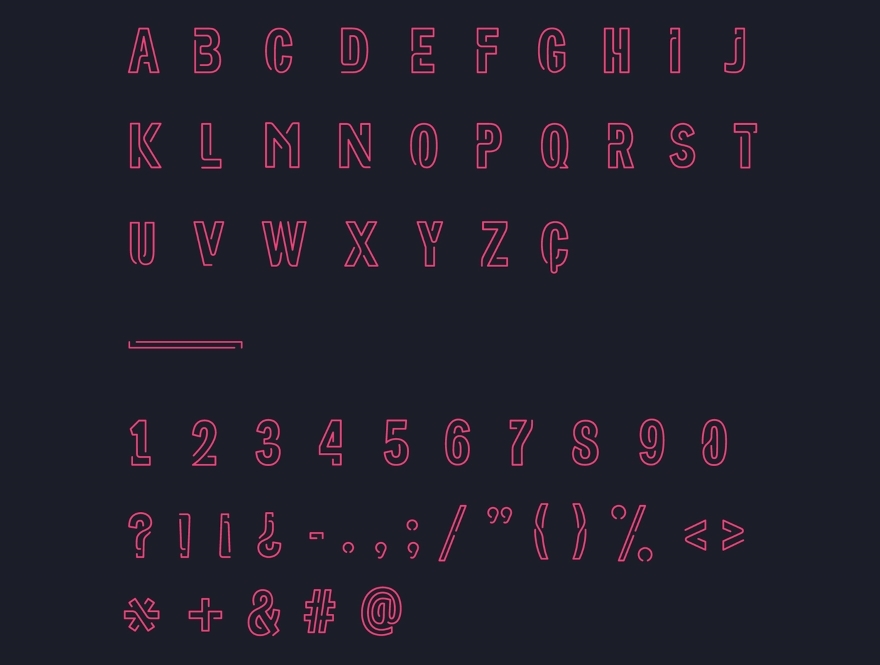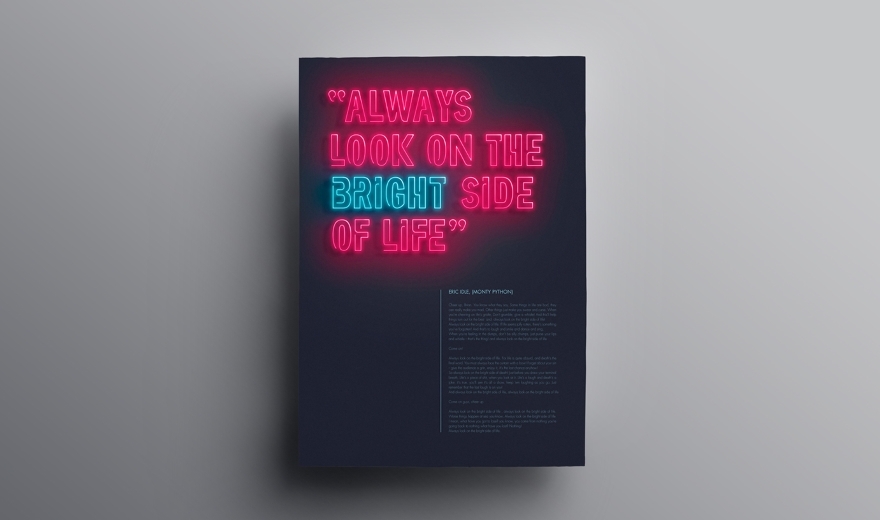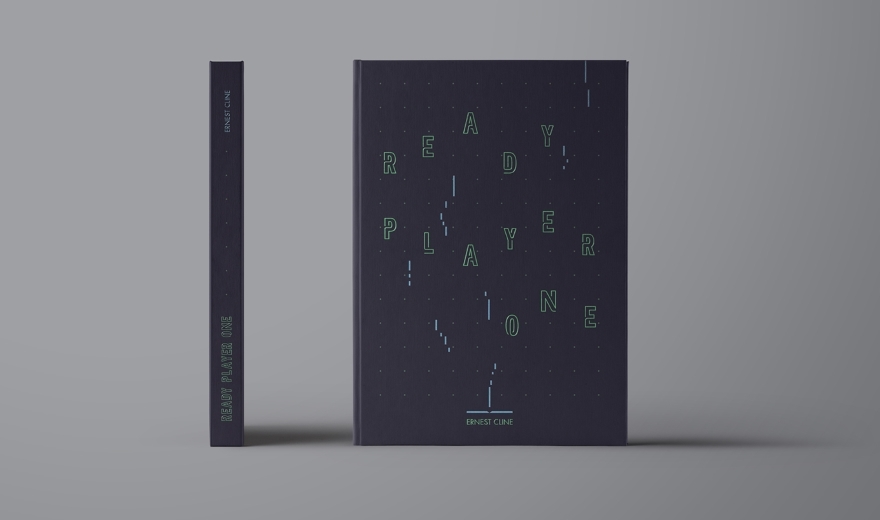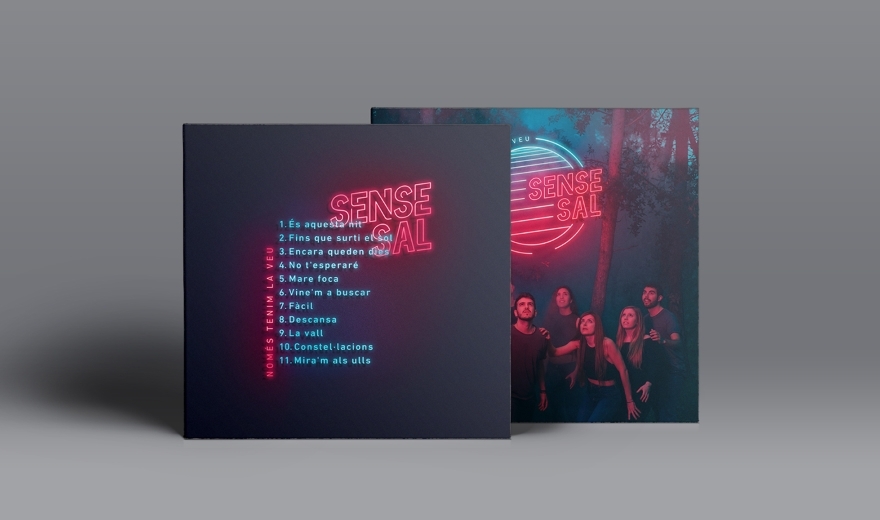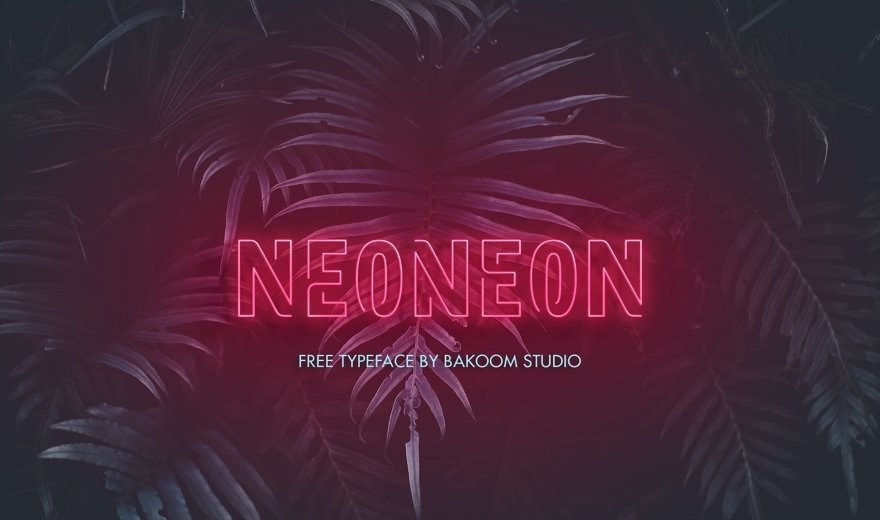
Neoneon is a free typeface, meant to reproduce the 80’s style of neon signage. This font could work perfectly to create headlines, covers, advertisements and graphic posters.